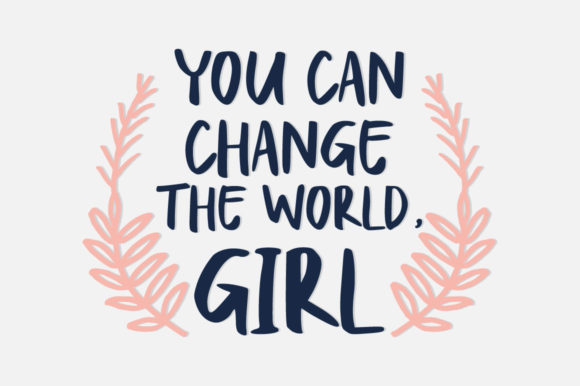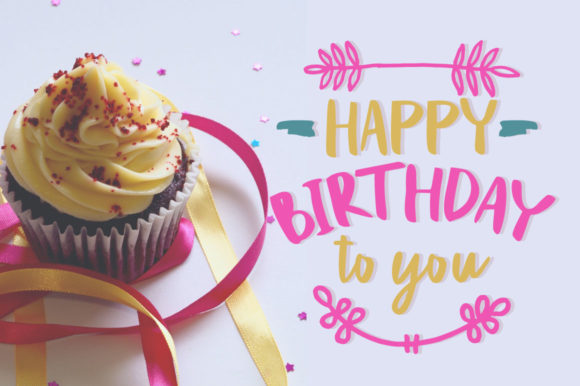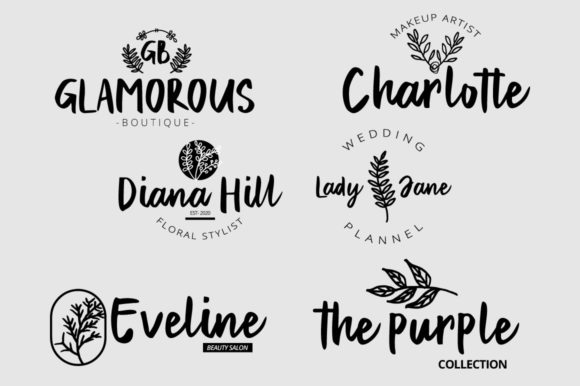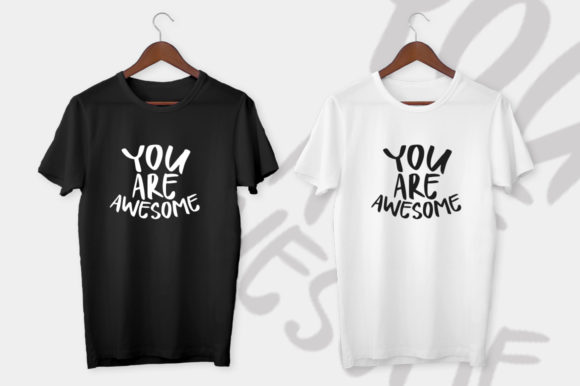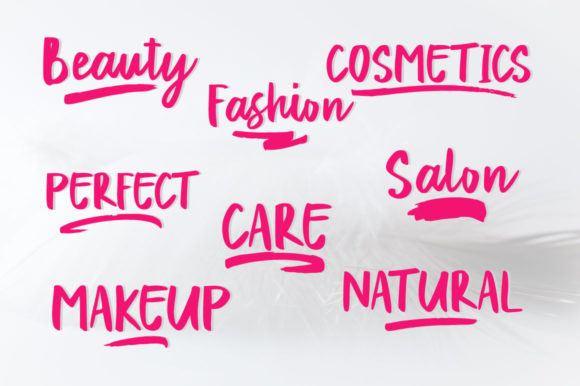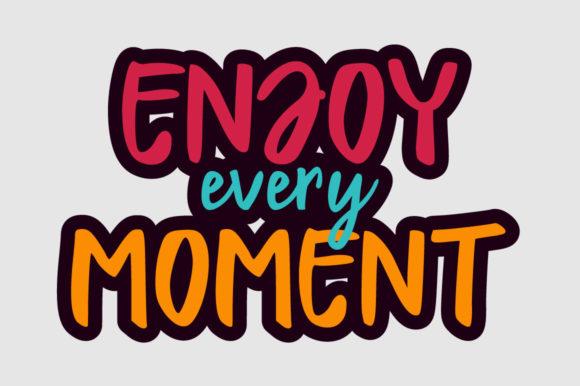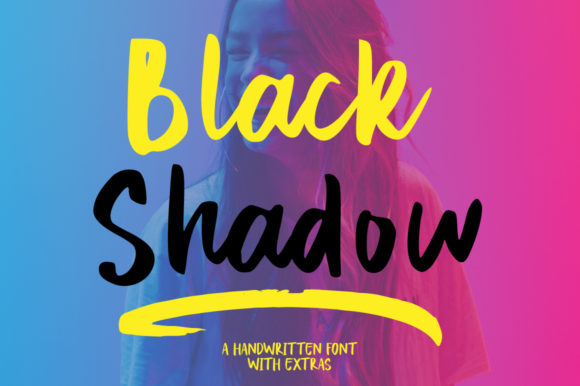
Introducing Black Shadow Font: Elevate Your Designs with Modern Handwritten Style
In the world of typography, fonts play a crucial role in conveying the message and aesthetic of a brand or design. For designers and crafters looking for a modern, stylish, and readable font, Black Shadow Font is an excellent choice. This modern handwritten font is designed to make a statement, with smooth curves and a bold presence that is perfect for fashion branding, editorial designs, and more.
What Makes Black Shadow Font Stand Out?
Black Shadow Font is not just another font; it’s a design statement. Its unique blend of modernity and elegance makes it an ideal choice for designers who want to add a touch of sophistication to their projects. Here are some key features that make Black Shadow Font stand out:
- Readable and Bold: Despite its stylish nature, Black Shadow Font remains highly readable, making it perfect for use in a variety of contexts, from headings to body text.
- Smooth Curves: The font’s smooth curves give it a fluid, dynamic feel that adds a touch of elegance to any design.
- Modern Handwritten Style: Black Shadow Font brings a modern twist to traditional handwritten fonts, making it perfect for contemporary designs.
- Fashion and Editorial Friendly: Its stylish and bold nature makes it particularly suited for fashion branding and editorial designs, where making a statement is key.
Why Choose Black Shadow Font for Your Projects?
Choosing the right font for your project can be a daunting task, but Black Shadow Font offers several compelling reasons to make it your top choice:
- Versatility: Black Shadow Font can be used in a wide range of projects, from fashion branding and editorial designs to advertising and packaging.
- Easy to Pair: Its unique style makes it easy to pair with other fonts, allowing you to create visually appealing and balanced designs.
- High Impact: The bold nature of Black Shadow Font ensures that your designs will stand out, grabbing the attention of your audience.
- User-Friendly: Black Shadow Font is designed to be user-friendly, making it easy to incorporate into your projects and work with, even for those who are new to design.
How to Use Black Shadow Font Effectively in Your Designs
To make the most out of Black Shadow Font, consider the following tips:
- Use it as a Headline Font: Its bold and stylish nature makes it perfect for headlines and titles, where you want to grab attention.
- Pair with Simpler Fonts: For body text, pair Black Shadow Font with simpler, more readable fonts to create a balanced design.
- Experiment with Colors and Effects: Don’t be afraid to experiment with different colors and effects to make your text stand out even more.
- Consider Your Audience: Make sure the font aligns with your brand’s message and appeals to your target audience.
Black Shadow Font is a powerful tool for designers and crafters looking to add a modern, stylish touch to their projects. Its readability, bold presence, and smooth curves make it an excellent choice for fashion branding, editorial designs, and more. By incorporating Black Shadow Font into your designs, you can elevate your work, make a statement, and leave a lasting impression on your audience. So why wait? Add Black Shadow Font to your collection today and discover the difference it can make in your designs.
Whether you’re a seasoned designer or just starting out, Black Shadow Font is sure to become a favorite in your collection. Its versatility, ease of use, and stunning appearance make it a valuable asset for any project. So go ahead, give Black Shadow Font a try, and see how it can transform your designs.